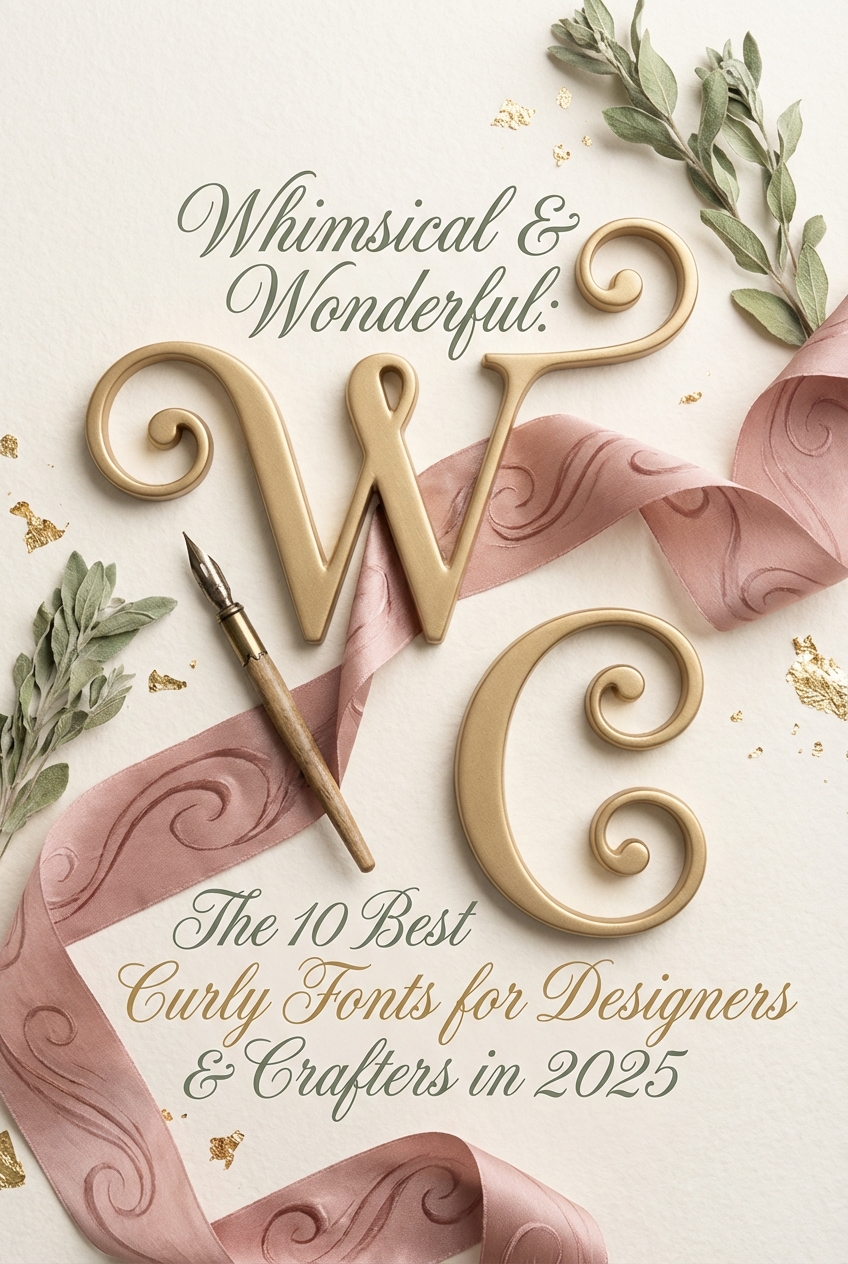
In the vibrant design landscape of 2025, personality is paramount. Designers and DIY crafters are moving towards typography that exudes warmth, elegance, and a handcrafted feel. Curly fonts, with their playful loops and graceful swashes, are at the forefront of this trend. They’re perfect for everything from bespoke wedding invitations and boutique branding to engaging social media content and personalized Cricut projects. To help you stay current, we’ve curated a list of the 10 most popular curly fonts that are making waves right now, ensuring your creations look fresh, modern, and full of character.
Top Collection Picks (2025-2026 Edition)
1. Monogram
Monogram combines timeless calligraphic elegance with a joyful, whimsical bounce. Created by the talented team at Happy Letters, this display font is a masterclass in decorative typography, featuring elaborate curls and flourishing swashes that feel both personal and luxurious. It’s the kind of font that doesn’t just spell out a word—it adorns it.
This asset is perfect for 2025-2026 because it masterfully blends nostalgic charm with the clean, high-impact aesthetic modern audiences crave. As design trends lean into personalized, artisanal branding, Monogram delivers an authentic, hand-crafted feel that helps brands tell a unique and compelling story, making it an essential tool for creating memorable visual identities.
- A complete set of ornate uppercase and lowercase characters.
- An extensive collection of stylistic alternates, ligatures, and decorative swashes for ultimate customization.
- Creating elegant logos, personal monograms, and bespoke wedding invitations.
- High-end branding and packaging for boutique products like candles, perfumes, and artisanal foods.
- Striking headlines and quotes for social media graphics, lifestyle blogs, and editorial design.
2. Hello September Duo
Hello September Duo combines a bouncy, free-flowing script with a perfectly matched all-caps sans-serif, creating a partnership that feels both playful and polished. Crafted by Miss Tiina, this font duo captures the essence of authentic, handcrafted lettering with its charming imperfections and elegant ligatures, making every design feel personal and unique.
This asset is perfect for 2025-2026 because it masterfully balances personality with clarity. As design trends continue to favor authentic, human-centric aesthetics over sterile minimalism, Hello September provides the warmth and approachability that brands and creators need to connect with their audience on a more personal level.
- A whimsical script font complete with stylistic alternates and ligatures for a custom, hand-lettered look.
- An accompanying clean, condensed sans-serif font for creating beautiful typographic contrast and hierarchy.
- Creating eye-catching branding for lifestyle blogs, boutique bakeries, and artisan shops.
- Designing elegant wedding invitations, save-the-dates, and event signage.
- Crafting engaging social media quote graphics and Pinterest pins that stand out.
- Personalized merchandise like t-shirts, mugs, and tote bags.
3. Flower
Flower combines the organic charm of hand-drawn lettering with the refined elegance of a classic script. Crafted by the talented team at Happy Letters, this display font features beautifully looping ascenders and descenders that mimic the natural, graceful curves of a blooming vine. Its whimsical yet sophisticated character makes it a versatile tool for adding a touch of warmth and personality to any creative project.
This asset is perfect for 2025-2026 because it masterfully taps into the growing design trend of authentic, nature-inspired aesthetics. As brands move towards more organic and relatable visual identities, Flower provides a font that feels both personal and high-end, allowing designers to create work that connects with audiences seeking warmth and handcrafted quality in a digital world.
- Includes a full set of uppercase and lowercase letters, numerals, and punctuation.
- Features elegant stylistic alternates and ligatures to create a truly custom, hand-lettered feel.
- Multilingual support for broad international application.
- Comes with a bonus set of delicate floral illustrations to perfectly complement your designs.
- Wedding invitations, save-the-dates, and romantic event branding.
- Boutique packaging, artisan product labels, and upscale cafe menus.
- Logos and branding for florists, photographers, and wellness brands.
- Eye-catching social media quotes, blog headers, and book covers.
4. Little Witches
Little Witches combines enchanting, hand-drawn curls with a touch of spooky elegance. This display font by HansCo captures a magical charm, featuring playful ligatures and a flowing baseline that feels both mystical and approachable, as if conjured directly onto the page.
This asset is perfect for 2025-2026 because it taps directly into the growing trend of organic, expressive typography. As designers move away from sterile minimalism, fonts like Little Witches offer the authentic, handcrafted personality needed to make branding and social media content feel unique and engaging.
- A complete set of uppercase and lowercase characters with whimsical curls.
- Includes a bewitching collection of stylistic alternates and ligatures to create a custom, hand-lettered look.
- Full multilingual support for broad project accessibility.
- Comes with punctuation and numerals that maintain the font’s playful, magical style.
- Thematic branding for mystical shops, apothecaries, or fantasy-themed products.
- Eye-catching social media graphics, especially for Instagram quotes and seasonal promotions.
- Crafting projects like custom T-shirts, spooky party invitations, and vinyl decals.
- Enchanting book covers, posters, and packaging that require a touch of magic.
5. Florida
Florida combines the timeless elegance of a classic serif with the carefree spirit of hand-drawn curls, creating a typeface that feels both sophisticated and wonderfully approachable. Crafted by Salt and Pepper Fonts, each letterform dances with a breezy, sun-kissed energy, making it an instant standout in any design toolkit.
This asset is perfect for 2025-2026 because it masterfully taps into the growing design trend of joyful authenticity. As brands and creators pivot from stark minimalism to more expressive, personality-driven visuals, Florida offers the ideal balance. Its organic flourishes provide character and warmth, while its solid serif structure ensures legibility, making it a forward-thinking choice for projects that aim to connect on a human level.
- A full set of uppercase and lowercase letters with whimsical curls.
- An extensive collection of ligatures and stylistic alternates to create unique, custom-feel typography.
- Broad multilingual support for versatile international projects.
- Includes OTF, TTF, and WOFF file formats for both web and print use.
- Boutique branding for artisanal goods, coastal-inspired cafes, or organic skincare lines.
- Elegant wedding invitations, stationery, and event signage.
- Eye-catching headlines and pull quotes in editorial design and lifestyle magazines.
- Charming social media graphics, quote posts, and digital branding assets.
6. Happy Holidays
Happy Holidays combines the joyful bounce of hand-lettering with elegant, looping curls to create a font that feels both festive and effortlessly chic. Each character dances along the baseline, bringing an infectious energy and a touch of handcrafted warmth to any design. It’s a delightful display font that balances playful personality with clean legibility, making your text pop with charisma.
This asset is perfect for 2025-2026 because it taps directly into the “dopamine design” trend, prioritizing joy, authenticity, and human connection. As brands move away from cold, minimalist aesthetics, Happy Holidays offers an organic, expressive alternative that feels personal and instantly engaging, making it ideal for creating memorable social media content and branding that resonates on an emotional level.
- A complete set of uppercase and lowercase characters with playful, bouncy alternates.
- Includes stylistic ligatures to create a natural, hand-drawn flow between letters.
- Extensive multilingual support for broad international use.
- PUA encoded for easy access to all glyphs in design and crafting software.
- Festive greeting cards, event invitations, and seasonal marketing campaigns.
- Eye-catching social media graphics, quotes, and story templates.
- Branding for bakeries, boutiques, and children’s products that need a touch of whimsy.
- Personalized crafting projects, including vinyl decals, t-shirts, and holiday decor.
7. Sailing South
Sailing South combines the approachable warmth of a handwritten script with the clean clarity of a modern sans serif. Its chunky, rounded letterforms and subtle curls create a feeling of gentle fun and effortless charm, making it a standout choice for projects that need to feel both friendly and professional.
This font is a perfect choice for 2025-2026 design projects because it perfectly captures the shift towards more authentic, personality-driven branding. As brands move away from cold minimalism, Sailing South offers a dose of human-centric warmth and joy without sacrificing legibility, making it incredibly relevant for connecting with modern audiences.
- A complete set of uppercase and lowercase letters, numerals, and punctuation.
- Unique, bubbly letterforms with soft, rounded edges for a friendly aesthetic.
- Includes special ligatures to give designs a more custom, hand-drawn look.
- Crisp legibility even at smaller sizes, a rare trait for such a stylized font.
- Eye-catching social media graphics, especially for lifestyle, parenting, or food bloggers.
- Modern branding for children’s products, artisanal shops, and cozy cafes.
- Creating unique quotes, greeting cards, and other print-on-demand merchandise.
- Digital and physical crafting projects, including SVG cut files for Cricut and Silhouette.
8. Meristmas
Meristmas combines the elegance of classic calligraphy with a playful, modern bounce. Created by HansCo, this script font features charmingly exaggerated curls and a smooth, flowing baseline that feels both sophisticated and approachable. Each letter is crafted to connect seamlessly, creating a delightful rhythm that dances across the page.
This asset is perfect for 2025-2026 because it taps directly into the growing trend of expressive typography and authentic, human-centric design. As brands move away from cold minimalism, Meristmas offers a dose of personality and warmth, allowing designers to create visuals that feel personal, handcrafted, and emotionally resonant.
- A full set of uppercase and lowercase characters with elegant swashes.
- An extensive collection of stylistic alternates and ligatures for a custom, hand-lettered look.
- Multilingual support to engage a global audience.
- PUA encoded characters for easy access to all glyphs without special software.
- Artisanal branding and high-end packaging design.
- Enchanting wedding invitations and event stationery.
- Eye-catching social media quotes and lifestyle blog headers.
- Craft projects, custom apparel, and personalized gift branding.
9. Mercy Christole
Mercy Christole combines the free-flowing elegance of classic calligraphy with a modern, playful bounce. Crafted by the talented team at HansCo, this display font feels both handcrafted and incredibly polished. Its charming curls and exaggerated swashes create a sense of movement and joy, making every word feel like a small piece of art.
This asset is perfect for 2025-2026 because it taps directly into the trend of expressive, personality-driven typography. As brands move away from sterile minimalism, Mercy Christole offers an authentic, handcrafted feel that builds instant connection and stands out beautifully on saturated digital platforms.
- A full set of elegant uppercase and lowercase letters with a bouncy baseline.
- Gorgeous stylistic alternates and ligatures to create truly custom, hand-lettered looks.
- PUA encoded characters for full accessibility in design and craft software.
- Includes multilingual support for broad project application.
- Boutique branding, logos, and packaging that needs a touch of personal charm.
- Creating standout social media graphics, especially for Instagram and Pinterest.
- Elegant wedding invitations, event signage, and heartfelt greeting cards.
- Personalized craft projects using cutting machines like Cricut and Silhouette.
10. Winter Princess
Winter Princess combines the clean readability of a sans-serif with the enchanting charm of hand-drawn curls. Created by jimtypestudio, this font feels both friendly and elegant, featuring soft, rounded letterforms and whimsical swashes that add a touch of magic to every character. It strikes a beautiful balance between modern simplicity and storybook wonder, making it incredibly versatile.
This asset is perfect for 2025-2026 because it taps directly into the trend of “expressive minimalism.” As designers move away from sterile, impersonal aesthetics, fonts like Winter Princess provide an instant dose of personality and warmth without sacrificing clarity. Its handcrafted feel resonates with brands aiming for authentic, approachable, and memorable visual identities in the coming years.
- A complete set of uppercase and lowercase characters with playful, curly terminals.
- Includes stylistic alternates and ligatures to add variety and a custom-drawn feel.
- Extensive multilingual support for broad international application.
- Enchanting branding for boutiques, bakeries, and children’s products.
- Eye-catching social media graphics, quotes, and blog post headlines.
- Charming wedding invitations, greeting cards, and personalized stationery.
🎨 Pro-Tips for Perfect Pairing & Legibility
Curly fonts are the star of the show, but even a star needs a great supporting cast. To ensure your design is both beautiful and readable, follow these two key principles:
- Create Contrast with Font Pairing: Avoid pairing two decorative or curly fonts together, as they will compete for attention and create a cluttered look. Instead, pair your whimsical curly font with a clean, simple font. A minimalist sans-serif (like Montserrat or Lato) works wonderfully for body text or subheadings, providing a stable foundation that lets the curly font shine.
- Leverage Glyphs & Swashes Wisely: Many premium curly fonts come with a treasure trove of alternate characters, ligatures, and swashes. These are fantastic for adding a custom flourish to the beginning or end of a word. However, use them sparingly! Overusing swashes can severely impact readability. Use them for headlines, logos, or single impactful words, not for entire sentences.
🛠️ Mastering the Cut: A Guide for Cricut & Silhouette Users
The delicate loops and thin lines of curly fonts are beautiful, but they can be challenging for cutting machines. Intricate details can tear paper or be difficult to “weed” from vinyl. To get a flawless cut every time, try the Offset Trick.
The Offset tool creates a slightly thicker outline around your text, which you can cut as a separate background layer. This has two major benefits:
- It gives the delicate top layer of your curly font more surface area to adhere to, making it stronger and easier to handle.
- It adds a professional, layered look to your project, making your text pop with a contrasting color.
Pro-Tip: For extremely thin fonts, apply a very small offset (e.g., 0.025 inches) and use the “Weld” function to merge it with the original text. This subtly thickens the font without losing its delicate character, making for a much cleaner cut.
💡 Beyond the Page: Unexpected Uses for Curly Fonts
Think beyond wedding invitations and social media graphics! The organic, hand-drawn nature of curly fonts makes them perfect for projects that require a touch of personal elegance. Here are a few inspiring ideas:
- Engraving & Etching: Use a curly font to create a design for laser engraving on wooden cheese boards, acrylic signage, or for etching personalized messages onto glassware. The flowing lines look stunning when carved into a physical surface.
- Custom Stencils for Decor: Design a stencil with a favorite quote in a beautiful curly script. You can use it to paint elegant patterns on furniture, fabric runners, or even to add a unique texture to a cake with powdered sugar.
- Digital Embroidery Patterns: Convert a name or short phrase into a vector format to create a custom pattern for digital embroidery machines. This is perfect for personalizing handkerchiefs, tote bags, or denim jackets.
There you have it—ten fantastic curly fonts ready to bring a touch of elegance and playfulness to your 2025 projects. Whether you’re a professional designer or a passionate crafter, incorporating these trending typefaces will instantly elevate your work. Start experimenting and let your creativity flow!